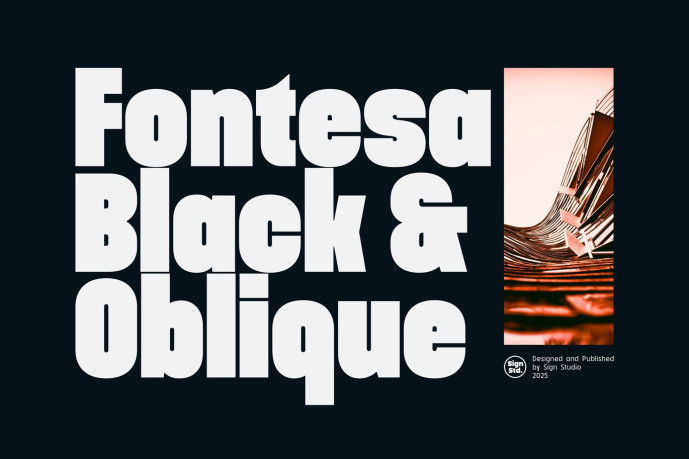
Fontesa Black Font
Designer: Sugiyanto
Fontesa Black & Black Oblique
Fontesa Black is a bold, modern sans serif font inspired by Brutalist geometry. With its strong semi-condensed proportions and clean letterforms, it delivers a confident, contemporary look that makes a lasting impression across branding and display applications.
This package includes Fontesa Black and Fontesa Black Oblique, featuring a dynamic 12° oblique style that adds movement and energy while maintaining excellent readability. The combination of bold weight and refined construction makes it ideal for eye-catching headlines, logos, packaging, posters, social media graphics, editorial layouts, and digital design.
Designed with versatility in mind, Fontesa Black balances expressive style with functional clarity. Whether you’re building a modern brand identity or creating impactful marketing materials, it provides the visual strength needed to make your message stand out.
Features
Modern semi-condensed sans serif
Inspired by Brutalist geometry
Clean and highly legible letterforms
Uppercase & lowercase
Numerals & punctuation
Multilingual support
Perfect for branding, logos, packaging, posters, advertising, editorial design, websites, social media, presentations, and more.